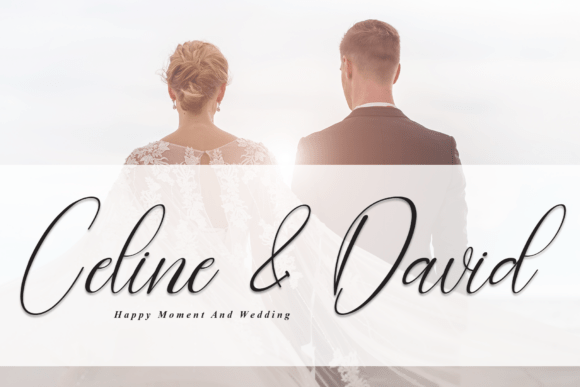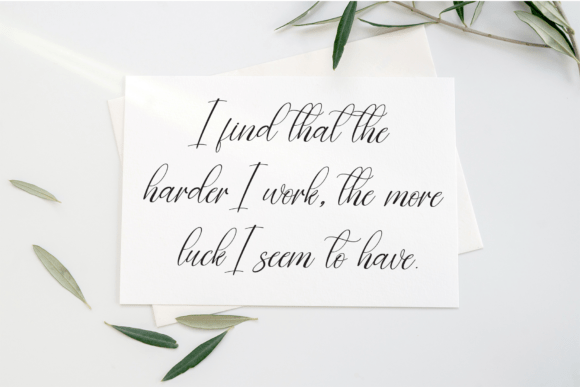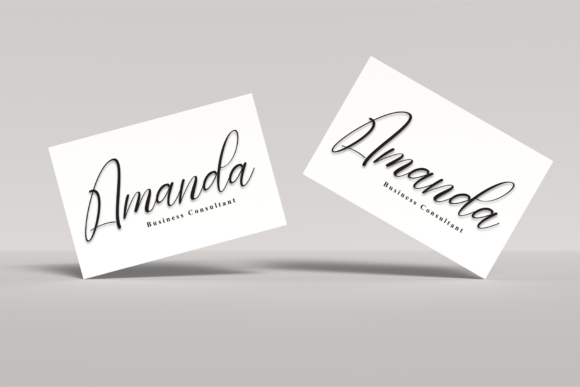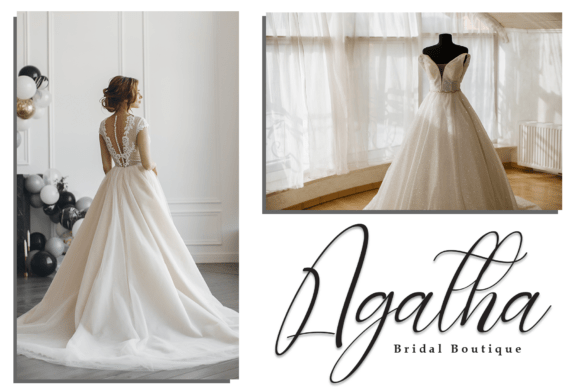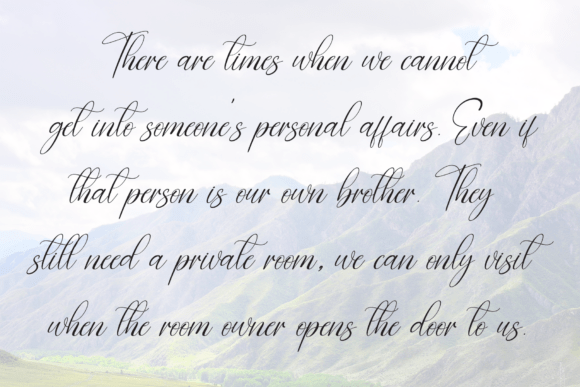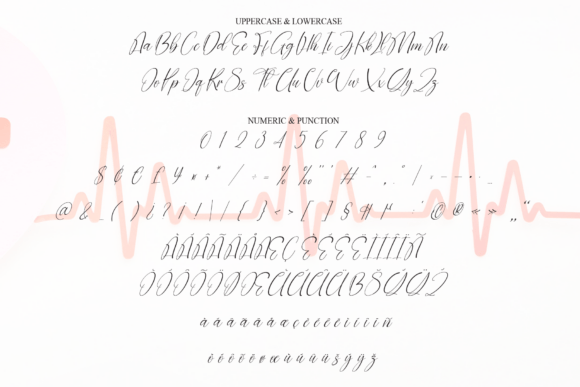
Add a Touch of Sophistication to Your Designs with Heartbeat Font
Are you looking for a font that can elevate your designs to the next level? Do you want to create romantic and luxurious visuals that leave a lasting impression? Look no further than Heartbeat Font, an elegant script font with swashes that is perfect for designers and crafters alike. In this article, we’ll explore the features and benefits of Heartbeat Font, and show you how to use it to add a touch of sophistication to your designs.
What is Heartbeat Font?
Heartbeat Font is a beautiful script font with swashes that is designed to add a touch of elegance and sophistication to your designs. With its graceful, flowing lines and beautiful beginning and ending swashes, this font is perfect for creating romantic and luxurious visuals. Whether you’re designing wedding invitations, branding projects, social media graphics, or handwritten quotes, Heartbeat Font is the perfect choice.
Features of Heartbeat Font
So, what makes Heartbeat Font so special? Here are just a few of its key features:
- Elegant Script Font: Heartbeat Font is a beautifully designed script font with flowing lines and elegant curves.
- Swashes: The font features beautiful beginning and ending swashes that add an extra flourish to your designs.
- Romantic and Luxurious: Heartbeat Font is perfect for creating romantic and luxurious visuals that are sure to impress.
- Versatile: This font can be used for a wide range of design projects, from wedding invitations to branding projects, social media graphics, and handwritten quotes.
Benefits of Using Heartbeat Font
So, why should you choose Heartbeat Font for your designs? Here are just a few of the benefits of using this elegant script font:
- Adds Sophistication: Heartbeat Font adds a touch of sophistication and elegance to your designs, making them stand out from the crowd.
- Creates Romantic Visuals: The font’s flowing lines and swashes create romantic and luxurious visuals that are perfect for wedding invitations, Valentine’s Day designs, and other romantic projects.
Design Ideas Using Heartbeat Font
Here are just a few design ideas to get you started with Heartbeat Font:
- Wedding Invitations: Use Heartbeat Font to create beautiful wedding invitations that set the tone for the big day.
- Branding Projects: Use the font to create elegant and sophisticated branding projects, such as logos, business cards, and letterheads.
- Social Media Graphics: Use Heartbeat Font to create eye-catching social media graphics, such as Facebook posts, Instagram stories, and Pinterest pins.
- Handwritten Quotes: Use the font to create beautiful handwritten quotes that can be used for inspiration, motivation, or decoration.
In conclusion, Heartbeat Font is a beautiful and elegant script font with swashes that is perfect for designers and crafters alike. With its flowing lines, beautiful swashes, and romantic and luxurious feel, this font is sure to add a touch of sophistication to your designs. Whether you’re designing wedding invitations, branding projects, social media graphics, or handwritten quotes, Heartbeat Font is the perfect choice. So why wait? Download Heartbeat Font today and start creating stunning designs that will leave a lasting impression.